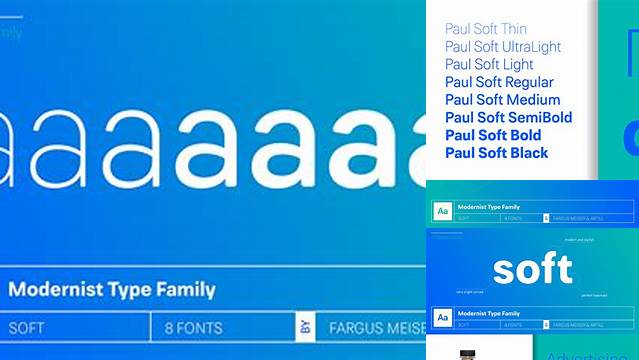
Introduction to Paul Grotesk Soft Font
Hey guys! Ever stumbled upon a font that just feels right? That's Paul Grotesk Soft for you. In the realm of typography, Paul Grotesk Soft stands out as a versatile and aesthetically pleasing font family. It's got this friendly, approachable vibe that makes it perfect for a wide array of design projects. Whether you're crafting a sleek website, designing eye-catching marketing materials, or even working on a book, this font family has got your back. The beauty of Paul Grotesk Soft lies in its clean lines and softened edges, which give it a contemporary yet timeless appeal. Its legibility is top-notch, making it a go-to choice for body text as well as headlines. The soft touch in its design adds a unique character, differentiating it from the more rigid, geometric sans-serif fonts out there. This makes it an excellent choice for projects aiming for a modern, humanistic feel. Think about it – a font can truly make or break a design. A poorly chosen font can make your content look amateurish and hard to read, while a well-chosen one can elevate your design, making it both visually appealing and highly functional. Paul Grotesk Soft strikes that sweet spot, offering a harmonious blend of style and usability. This font family's versatility extends to its various weights and styles, giving designers a broad palette to work with. From light and airy to bold and commanding, Paul Grotesk Soft adapts seamlessly to different design needs. Its consistent design language across the family ensures a cohesive look and feel, making it easy to create visually consistent projects. And the best part? It's available for free download, making it accessible to everyone from seasoned professionals to budding designers. So, if you're on the hunt for a font that's both beautiful and practical, Paul Grotesk Soft is definitely worth checking out. In the following sections, we'll dive deeper into its characteristics, explore its ideal use cases, and guide you on how to snag that free download. Let's get started!
Key Characteristics of Paul Grotesk Soft Font Family
Let's dive into what makes Paul Grotesk Soft tick, shall we? You know, every font has its own personality, and this one's got a pretty cool one. When we talk about the key characteristics, we're essentially looking at the DNA of the font – what makes it unique and sets it apart from the crowd. First off, the defining feature of Paul Grotesk Soft is, well, its softness. Unlike some of those super sharp, geometric sans-serifs, this font has rounded terminals and corners. What does that mean for you? It translates to a friendlier, more approachable vibe. It's like the font is giving you a gentle hug, rather than a stern handshake. This softness makes it particularly appealing for designs that need to feel warm and inviting. Think websites for wellness brands, children's books, or even marketing materials for a cozy coffee shop. Now, let's talk about legibility. I can't stress this enough – a font can be the prettiest thing in the world, but if nobody can read it, what's the point? Paul Grotesk Soft nails this aspect. Its letterforms are clear and well-defined, making it a fantastic choice for both headlines and body text. Whether you're reading it on a big screen or a tiny phone, the words just pop. This is crucial for ensuring your message gets across effectively. Another key characteristic is its versatility. This font family isn't a one-trick pony. It comes in a range of weights, from thin and delicate to bold and impactful. This gives you the flexibility to use it in a variety of contexts. Need a light touch for a minimalist design? Go with the lighter weights. Want to make a statement with a headline? The bolder weights will do the trick. Plus, the different weights work beautifully together, allowing you to create visual hierarchy and add depth to your designs. The overall design aesthetic is modern and clean. Paul Grotesk Soft has a contemporary feel without being overly trendy, which means it's likely to stand the test of time. It doesn't scream for attention, but it certainly commands it with its understated elegance. This makes it a solid choice for projects where you want the content to shine, without the font overshadowing it. Last but not least, the consistent design language across the font family is a major plus. This means that no matter which weight or style you choose, it'll feel like it belongs to the same family. This consistency is key for creating cohesive and professional-looking designs. So, to sum it up, Paul Grotesk Soft is characterized by its softness, legibility, versatility, modern aesthetic, and consistent design. It's a font that works hard and looks good doing it.
Ideal Use Cases for Paul Grotesk Soft
Okay, so we've talked about what Paul Grotesk Soft is, but now let's get into where it shines. Knowing a font's strengths is like having a secret weapon in your design arsenal. You wouldn't use a hammer to screw in a bolt, right? Same goes for fonts – the right tool for the right job, my friends! When it comes to ideal use cases, Paul Grotesk Soft is a bit of a chameleon. It can adapt to a wide range of scenarios, but there are certain areas where it truly excels. First up, let's talk branding. This font family is a fantastic choice for creating a brand identity that feels modern, approachable, and trustworthy. Its soft edges convey a sense of warmth and friendliness, which can be a huge asset for brands looking to connect with their audience on a personal level. Think about businesses in the wellness, lifestyle, or education sectors – Paul Grotesk Soft can help them project an image that's both professional and inviting. Its clean lines also ensure that the brand's message is communicated clearly and effectively. Now, onto the web. In the digital realm, legibility is king. And as we've already established, Paul Grotesk Soft is a readability rockstar. It works beautifully for website body text, ensuring that visitors can easily consume your content. Its modern aesthetic also makes it a great fit for contemporary website designs. Whether you're building a blog, an e-commerce site, or a corporate website, this font can help you create a polished and user-friendly experience. What about print materials? Fear not, Paul Grotesk Soft shines here too! From brochures and flyers to posters and business cards, this font can add a touch of sophistication to your printed designs. Its versatility means it can handle both headlines and body text with ease, making it a go-to choice for a wide range of print projects. The softness of the font also helps to soften the often-sterile feel of printed materials, making them more engaging and inviting. Another area where Paul Grotesk Soft excels is in editorial design. Think magazines, books, and newsletters. Its clean, legible letterforms make it a pleasure to read long passages of text, while its modern aesthetic ensures that your publications look current and stylish. The different weights within the family allow you to create visual hierarchy and add emphasis where needed, making it easy to guide the reader's eye. And let's not forget about UI/UX design. In the world of apps and software, clarity and usability are paramount. Paul Grotesk Soft's clear letterforms and modern aesthetic make it an excellent choice for user interfaces. It's easy to read on screens of all sizes, and its softness helps to create a more welcoming and user-friendly experience. So, whether you're designing a mobile app, a web application, or a desktop program, Paul Grotesk Soft can help you create an interface that's both functional and visually appealing. To sum it up, Paul Grotesk Soft is ideal for branding, web design, print materials, editorial design, and UI/UX design. It's a versatile font that can add a touch of modern elegance to a wide range of projects. So, if you're looking for a font that's both beautiful and practical, this one's definitely worth considering.
Tips for Using Paul Grotesk Soft Effectively
So, you've got Paul Grotesk Soft downloaded and ready to go – awesome! But having a great font is only half the battle. Knowing how to use it effectively is what will truly elevate your designs. Think of it like having a top-of-the-line paintbrush – it's only as good as the artist wielding it. Let's dive into some tips and tricks for making the most of this versatile font family. First and foremost, consider the context. Every design project has its own unique needs and goals. Before you start slinging fonts around, take a moment to think about the overall message you're trying to convey and the audience you're trying to reach. Is it a serious, professional project, or something more playful and lighthearted? Paul Grotesk Soft, with its friendly and approachable vibe, is a great fit for projects that need to feel modern and inviting. But it might not be the best choice for, say, a legal document or a high-end luxury brand. Once you've got the context in mind, think about hierarchy. Visual hierarchy is the art of guiding the viewer's eye through your design, highlighting the most important information first. This is where the different weights within the Paul Grotesk Soft family come in super handy. Use the bolder weights for headlines and subheadings to grab attention, and the lighter weights for body text to ensure readability. The contrast between the different weights will create a clear visual hierarchy, making your design more organized and easier to navigate. Speaking of body text, legibility is key. As we've discussed, Paul Grotesk Soft is a highly legible font, but there are still a few things you can do to maximize its readability. Pay attention to line height (the vertical space between lines of text) and letter spacing (the horizontal space between letters). Too little line height can make the text feel cramped and difficult to read, while too much can make it feel disjointed. Similarly, too little letter spacing can cause letters to run together, while too much can create awkward gaps. Experiment with these settings until the text feels comfortable to read. Another important tip is to avoid overusing the font. Just because you love Paul Grotesk Soft doesn't mean you should use it for every element in your design. Too much of a good thing can actually be detrimental. Try pairing it with a contrasting font for a more dynamic and visually interesting look. For example, you could use Paul Grotesk Soft for headlines and body text, and then choose a serif font for captions or pull quotes. This will add some variety to your design and prevent it from feeling monotonous. When pairing fonts, look for contrast and harmony. You want fonts that complement each other without competing for attention. A good rule of thumb is to pair a sans-serif font (like Paul Grotesk Soft) with a serif font, or vice versa. This creates a clear visual distinction between the different text elements. But also make sure that the fonts share some common characteristics, such as a similar x-height or overall tone, to ensure a cohesive look. Don't be afraid to experiment with different sizes and styles. The beauty of Paul Grotesk Soft is its versatility. Try using the italic style for emphasis, or playing with different font sizes to create visual interest. Just be sure to use these techniques sparingly and purposefully, to avoid overwhelming the viewer. Finally, always test your designs. What looks great on your computer screen might not translate well to other devices or in print. Before you finalize a design, view it on different screens and print out a test copy to make sure everything looks as it should. This will help you catch any legibility issues or design flaws before they become a problem. So, to recap, use Paul Grotesk Soft effectively by considering the context, creating hierarchy, maximizing legibility, avoiding overuse, pairing it thoughtfully, experimenting with sizes and styles, and testing your designs. With these tips in mind, you'll be well on your way to creating stunning designs with this fantastic font family.
Alright, guys, we've reached the finish line! We've taken a deep dive into the world of Paul Grotesk Soft, exploring its key characteristics, ideal use cases, how to download it for free, and tips for using it effectively. By now, you should have a solid understanding of why this font family is such a valuable asset for designers of all levels. To recap, Paul Grotesk Soft is a versatile and aesthetically pleasing font that's characterized by its softness, legibility, modern aesthetic, and consistent design. Its rounded terminals and corners give it a friendly and approachable vibe, making it a great choice for projects that need to feel warm and inviting. Its clear letterforms ensure excellent readability, making it suitable for both headlines and body text. And its range of weights and styles provide ample flexibility for various design needs. We've also discussed the ideal use cases for Paul Grotesk Soft, which include branding, web design, print materials, editorial design, and UI/UX design. Whether you're creating a logo, designing a website, or laying out a magazine, this font can help you achieve a polished and professional look. We walked through the steps for downloading Paul Grotesk Soft for free from reputable font websites, emphasizing the importance of reading the font license before use. This ensures that you're using the font legally and ethically, and avoiding any copyright issues. And finally, we covered some essential tips for using Paul Grotesk Soft effectively. These tips included considering the context, creating hierarchy, maximizing legibility, avoiding overuse, pairing it thoughtfully, experimenting with sizes and styles, and testing your designs. By following these guidelines, you can make the most of this font and create stunning visuals that communicate your message clearly and effectively. In conclusion, Paul Grotesk Soft is more than just a font – it's a design tool that can help you bring your creative visions to life. Its versatility, legibility, and modern aesthetic make it a valuable addition to any designer's toolkit. So, go ahead, download it, experiment with it, and unleash its potential. Whether you're a seasoned professional or just starting out in the world of design, Paul Grotesk Soft is sure to become one of your go-to fonts. Thanks for joining me on this typographic journey! I hope you've found this guide helpful and inspiring. Now go out there and create some amazing designs!